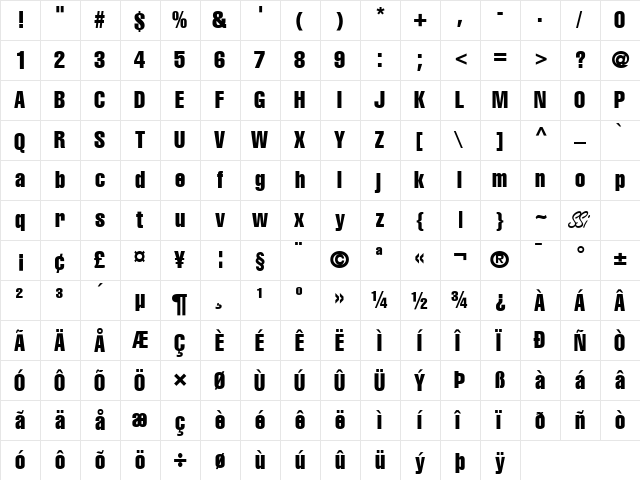
Context Extra Condensed SSi Bold Extra Condensed Font Preview
Context Extra Condensed SSi Bold Extra Condensed
Design Context for Context Extra Condensed SSi Typeface
Context Extra Condensed SSi is a composed and adaptable typeface that performs quietly and consistently across a wide range of design contexts. The heavy weight commands attention and anchors typographic hierarchies. The condensed width makes it efficient for tight spaces without sacrificing legibility.